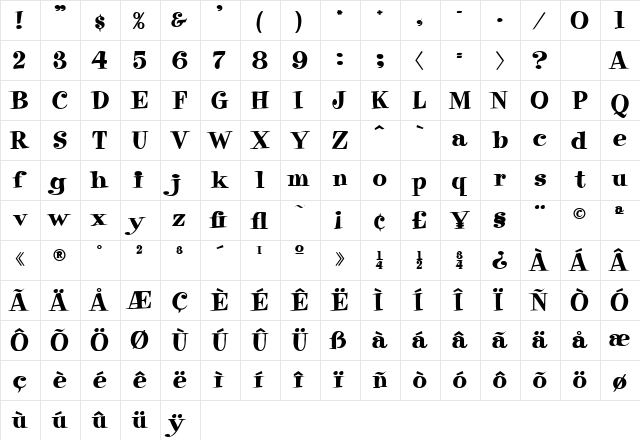
Raskin Heavy
Design Context for Raskin Typeface
Raskin is a composed and adaptable typeface that performs quietly and consistently across a wide range of design contexts.